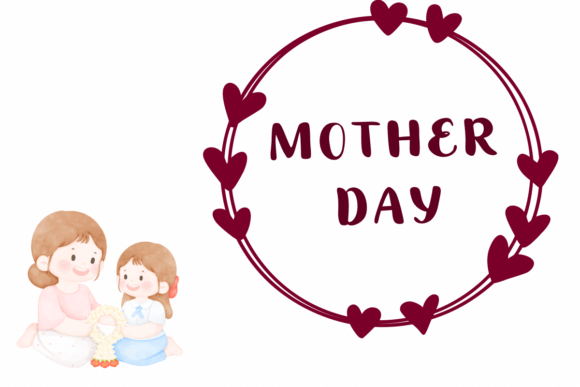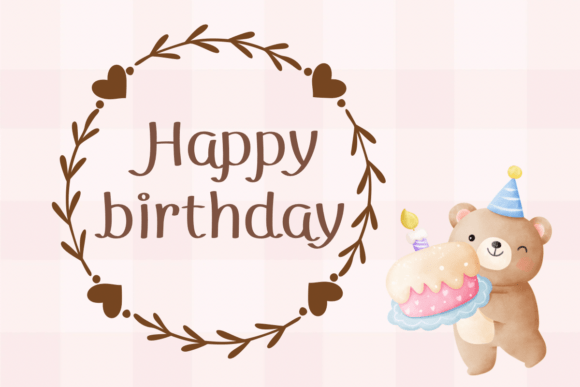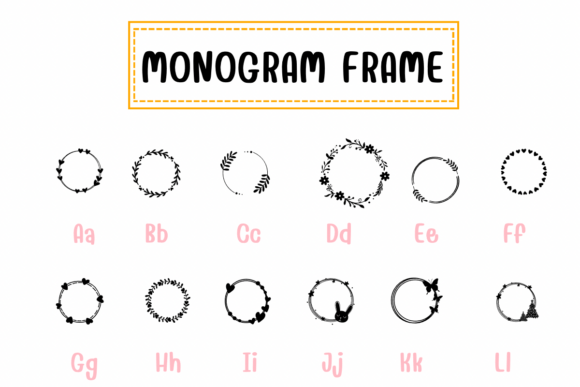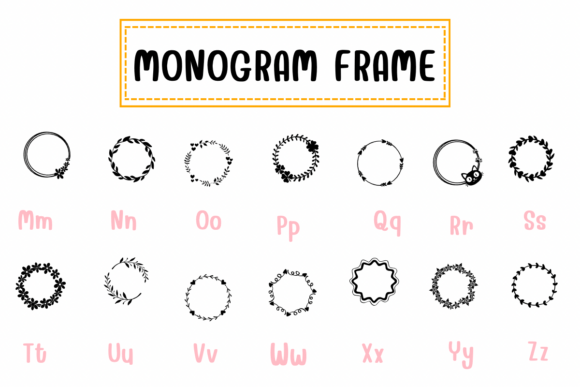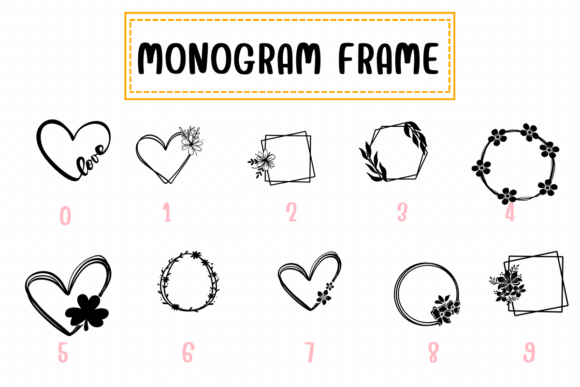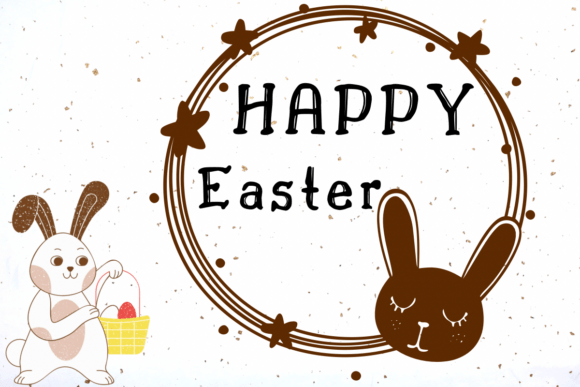
Introduction to Monogram Frame Font
Monogram Frame is an elegant dingbat font featuring a variety of decorative wreaths and frames perfect for creating custom monograms, logos, and invitations.
Each glyph is a unique hand-drawn frame ready to enhance your design with charm .
Key Features of Monogram Frame Font
Why Choose Monogram Frame Font?
Monogram Frame Font offers exceptional quality and versatility, making it a valuable addition to your design toolkit. Whether you’re creating for personal projects or commercial use, Monogram Frame Font delivers professional results.